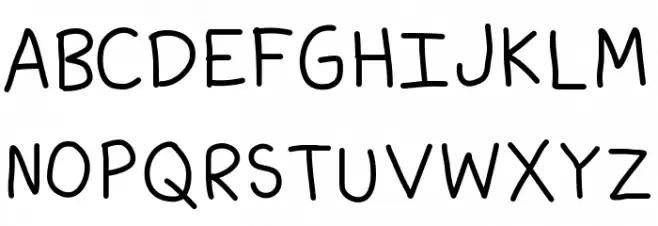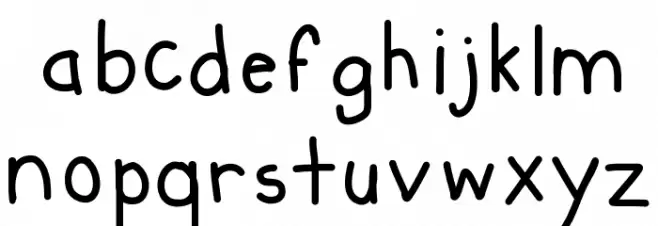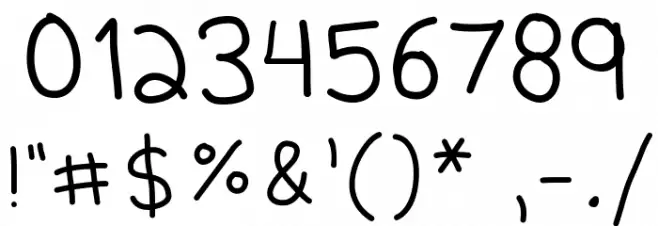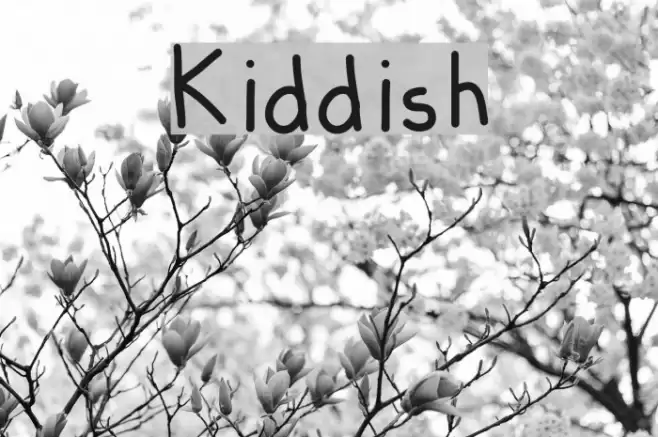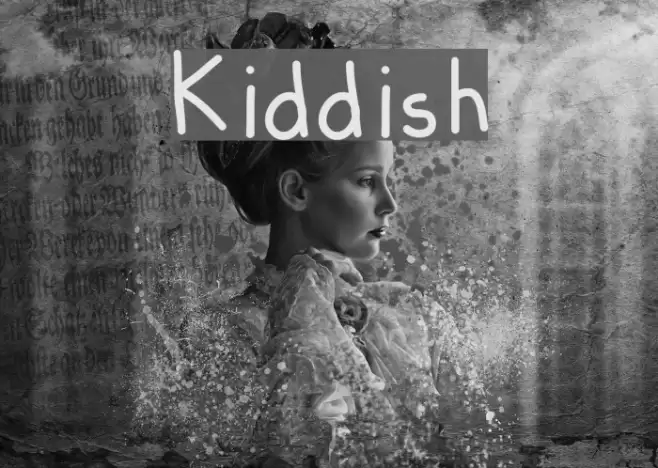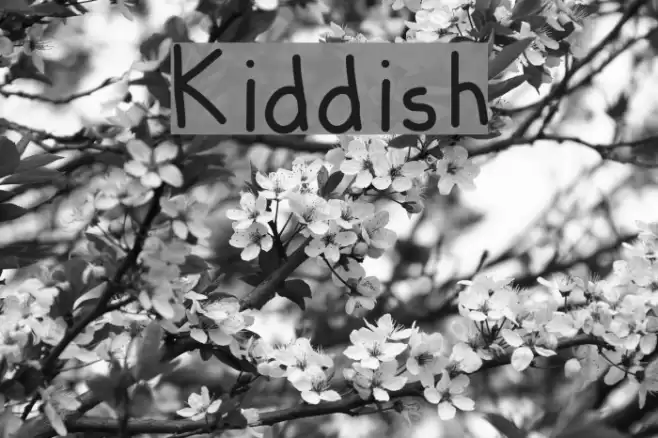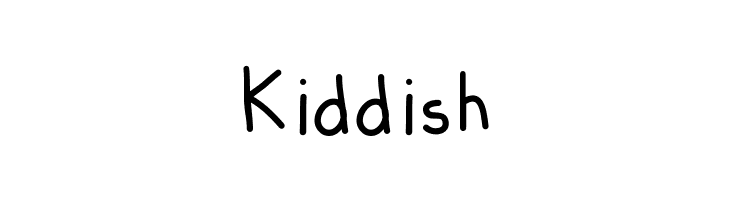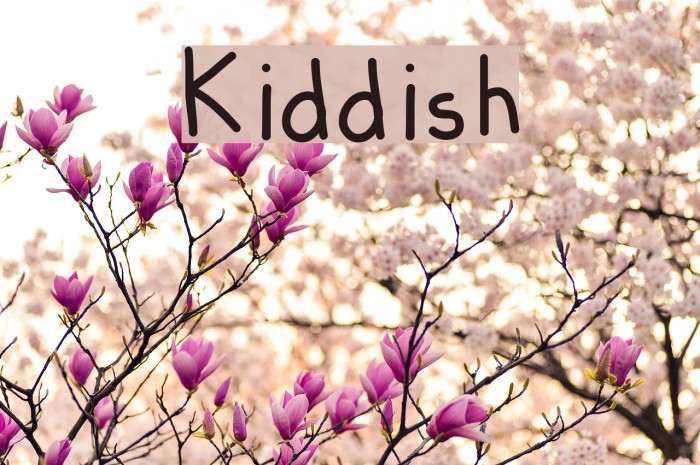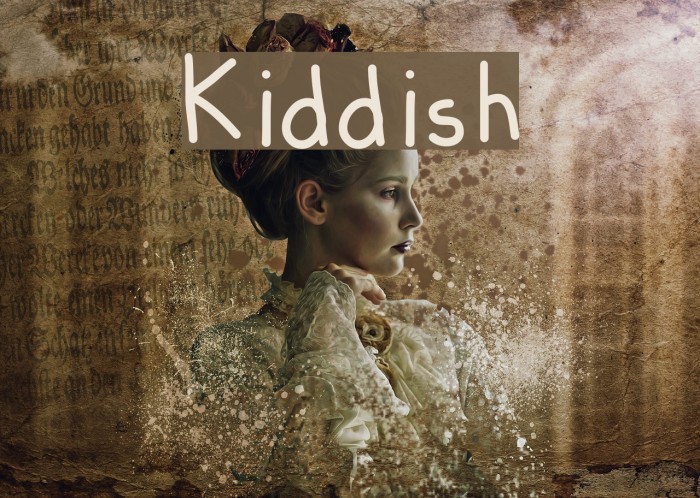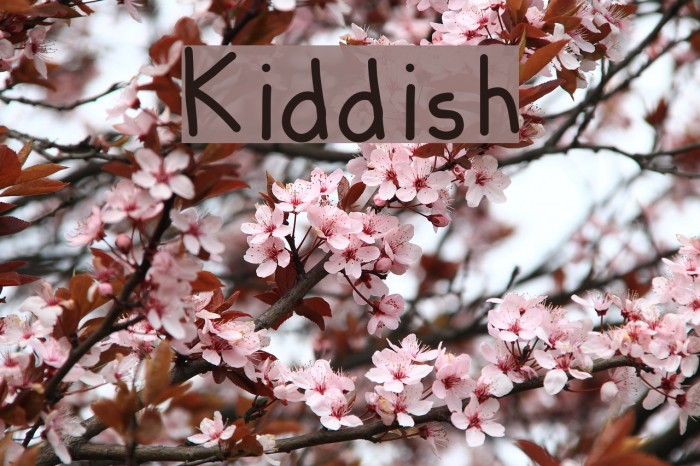
Kiddish
This playful and whimsical font features a handwritten style that exudes a sense of fun and creativity. The characters are slightly irregular, adding a charming and informal touch. The strokes are consistent in width, giving it a uniform appearance while maintaining a casual vibe. The font's rounded edges and smooth curves enhance its friendly and approachable look, making it ideal for projects that aim to convey warmth and friendliness. It is particularly suitable for children's books, playful branding, and any design that requires a touch of lightheartedness.
A playful handwritten font with a whimsical and friendly style.
- Proposed Projects: Children's books, playful branding, greeting cards, educational materials, and informal invitations.
- Overall Style: Playful
- Use Case: Headlines, Logos, Informal text